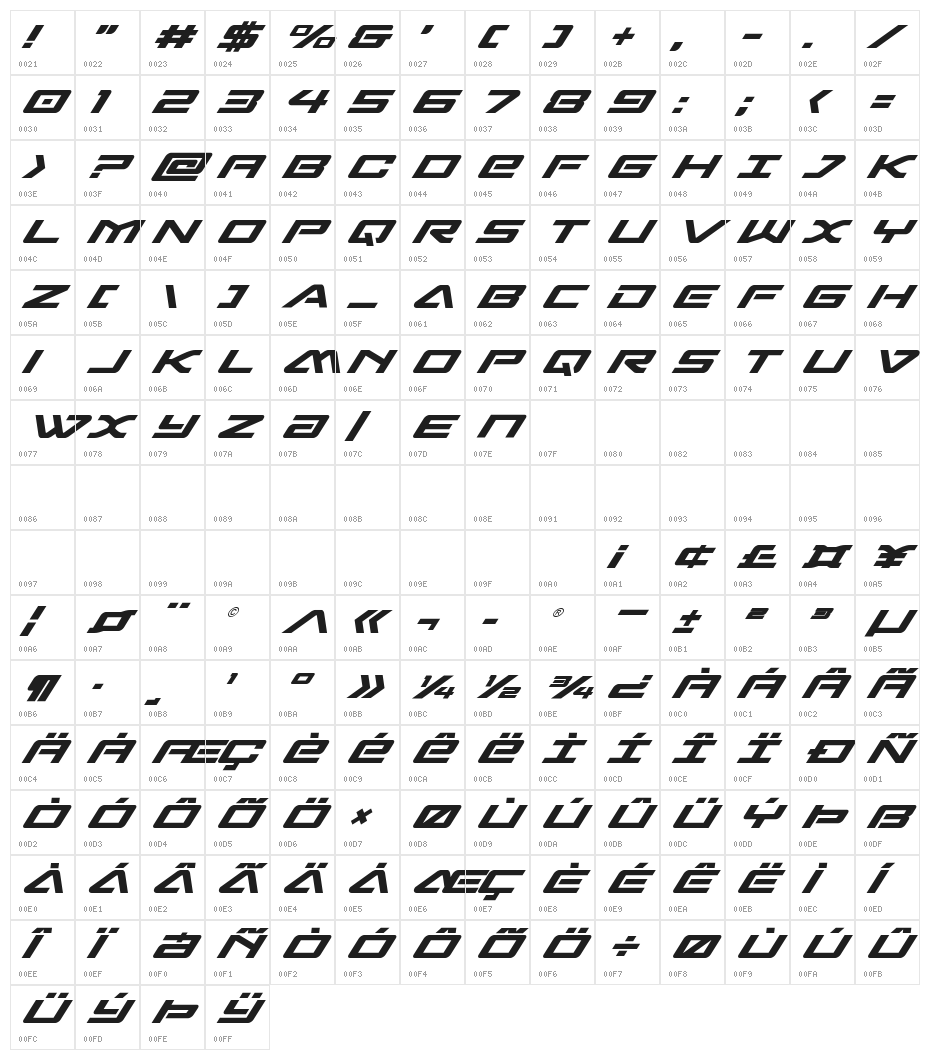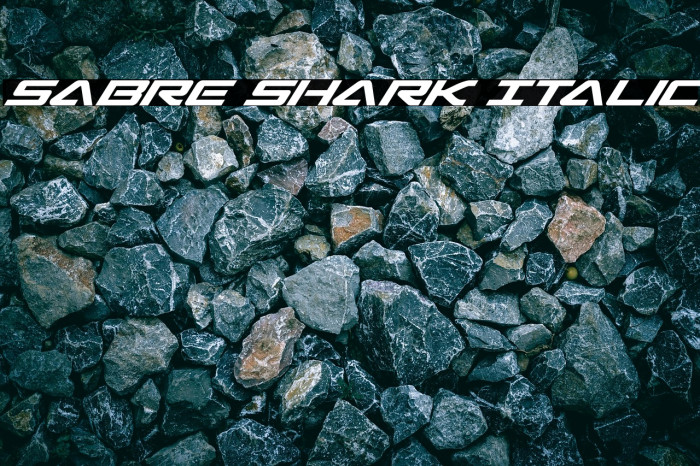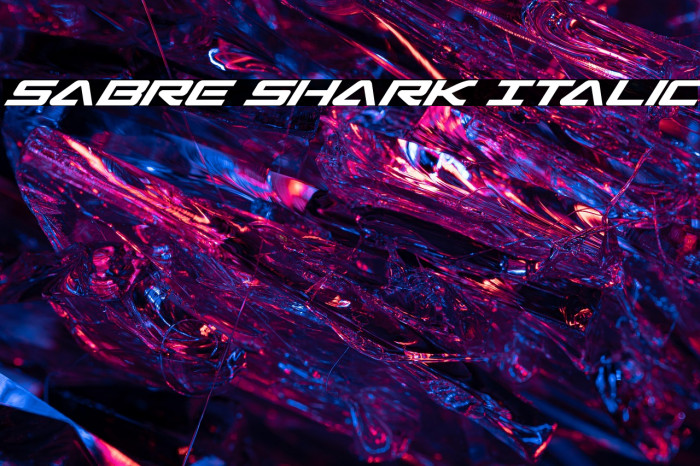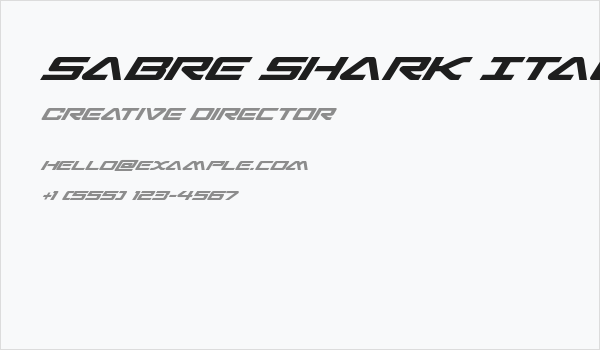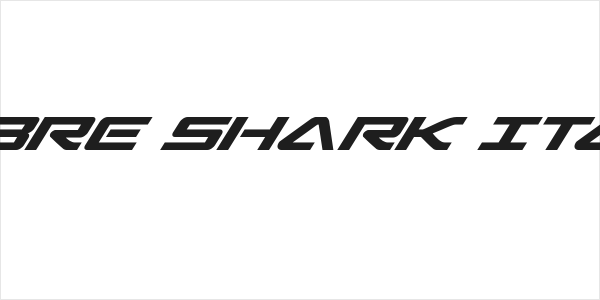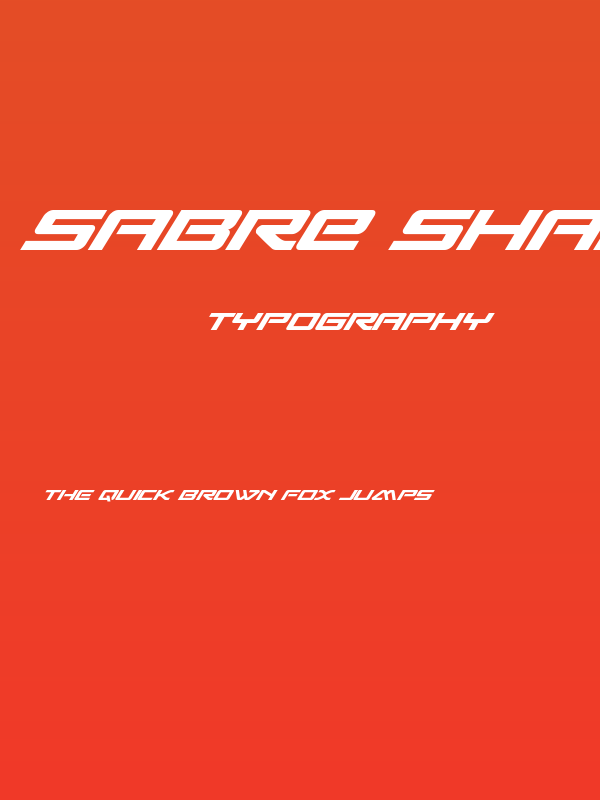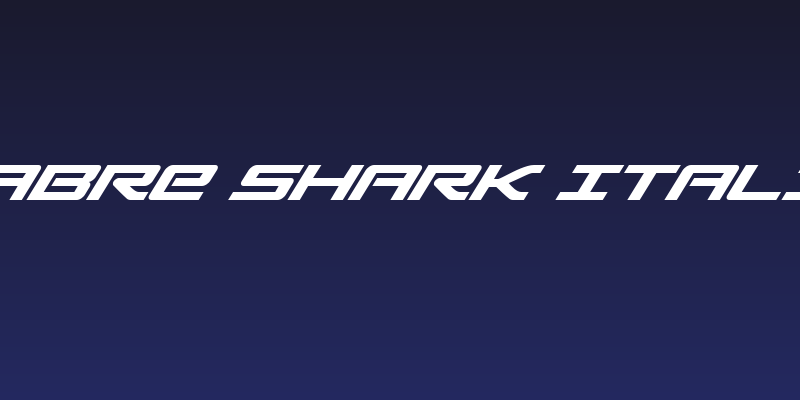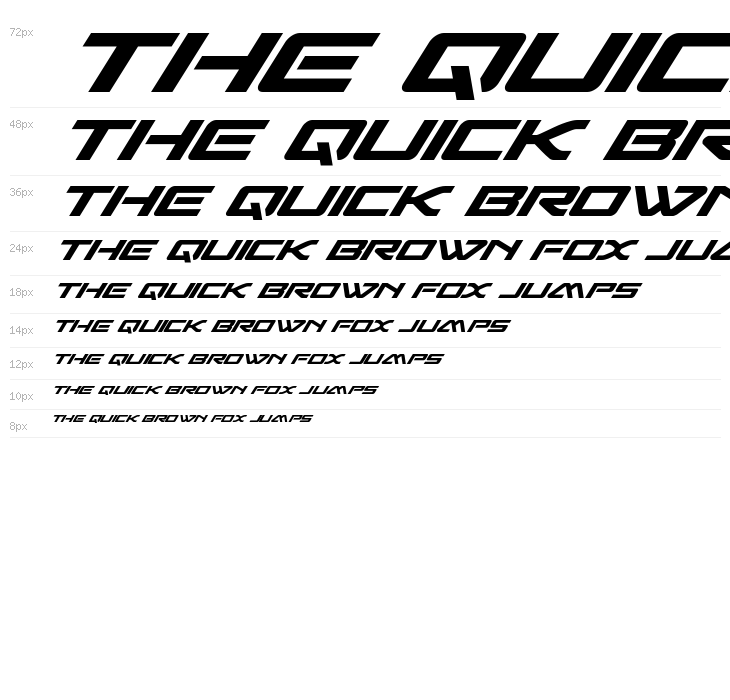
Sabre Shark Italic Font
Sabre Shark Italic Description
This font features a dynamic and futuristic design with sharp, angular lines and a forward-leaning italic style. The characters are bold and impactful, with a distinct geometric structure that gives a sense of speed and modernity. The uppercase and lowercase letters maintain a consistent style, enhancing readability while adding a unique flair. The numerals and special characters are designed to match the overall aesthetic, making them suitable for a variety of applications. The font's aggressive and sleek appearance makes it ideal for projects that require a strong visual impact.
| Proposed Projects | Ideal for sports branding, automotive designs, video game titles, and tech-related projects. |